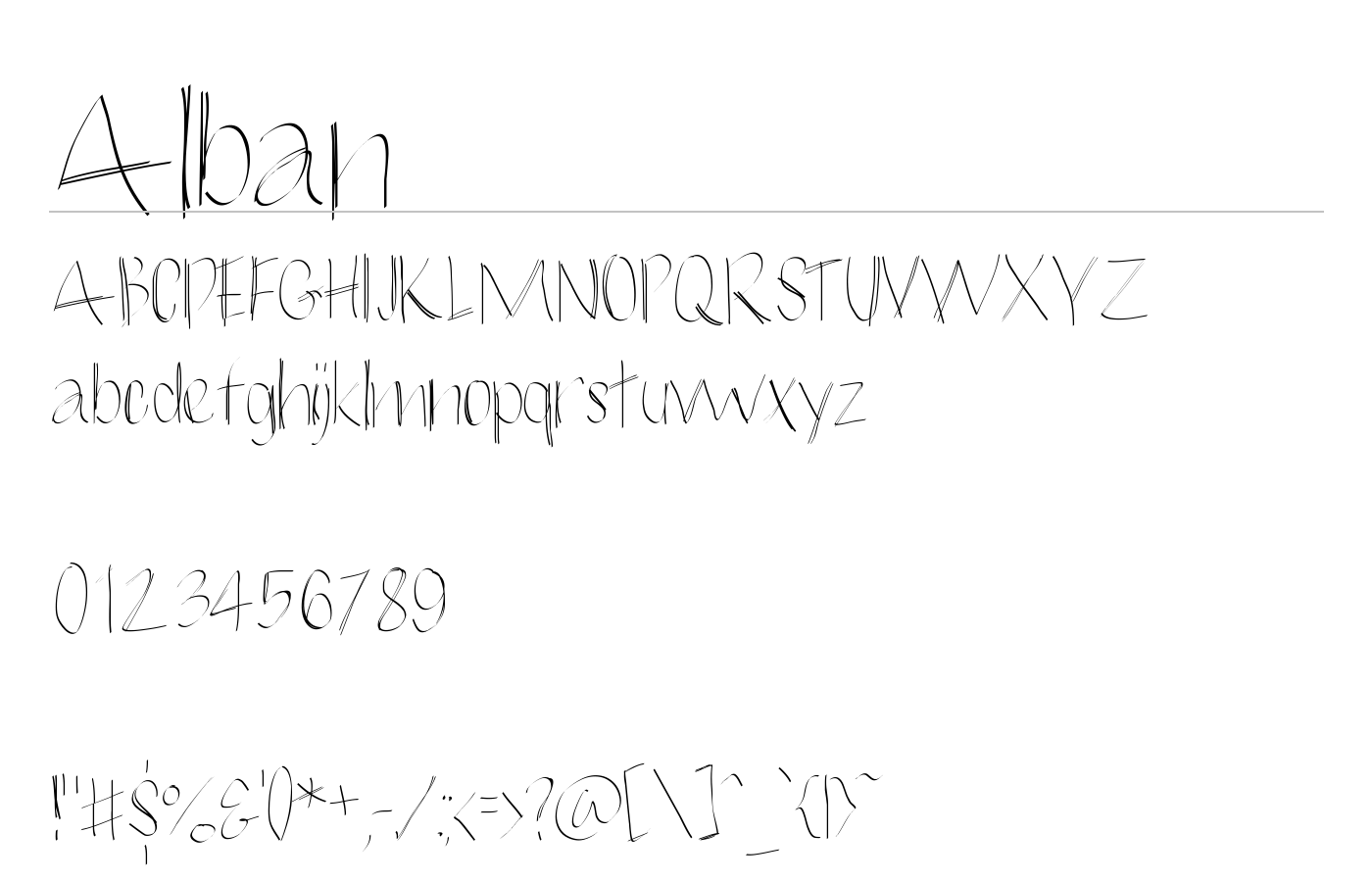
Alban is a delicate, narrow handwritten font with a whimsical and slightly erratic style, featuring thin strokes and an airy, light feel. Its tall, slender letterforms and uneven lines give it a playful and artistic personality, making it ideal for creative projects, informal branding, or invitations where a personal, quirky touch is desired. This font works best in display settings where its unique character can stand out without sacrificing readability.
Alban Font
About Alban Font